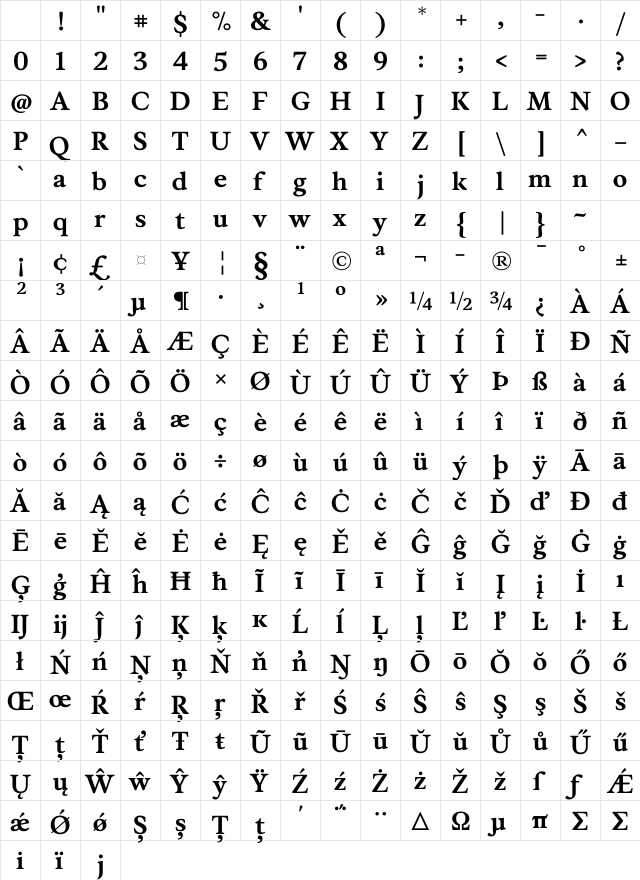
Complete MuseeBold Regular glyph index. Displaying only characters natively supported by MuseeBold Regular font.
MuseeBold is a composed and adaptable typeface that performs quietly and consistently across a wide range of design contexts. Its bold stroke weight gives it real presence on the page.